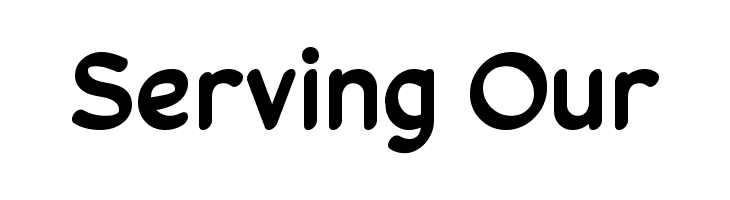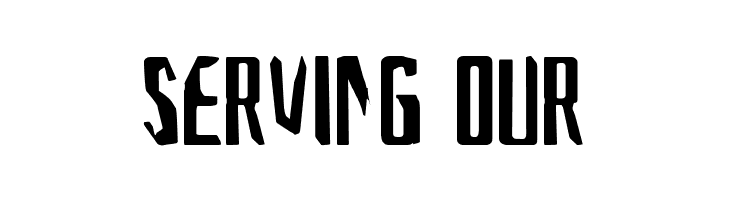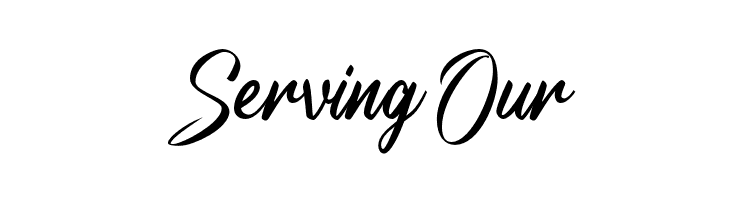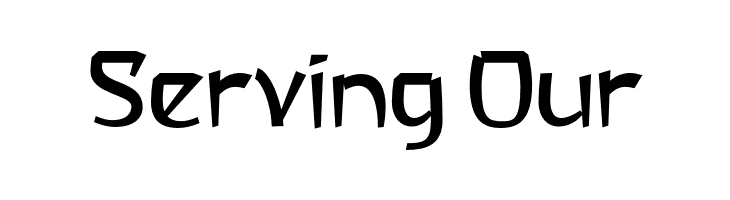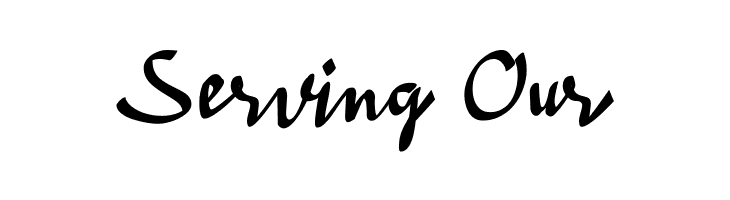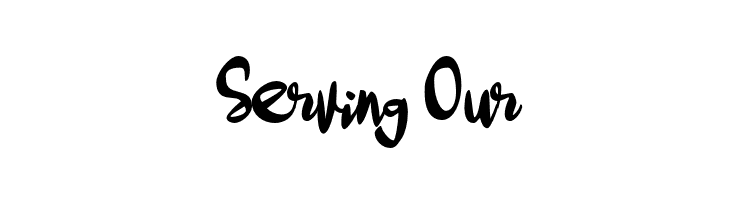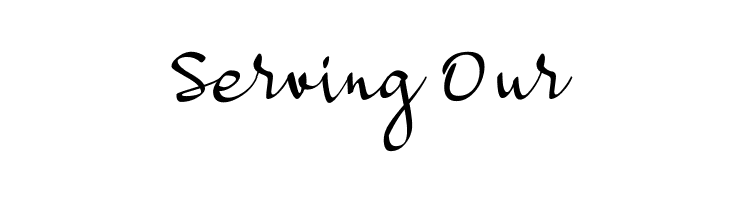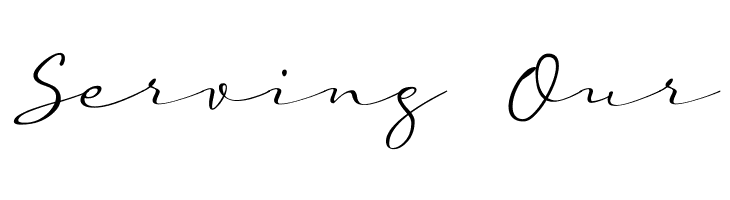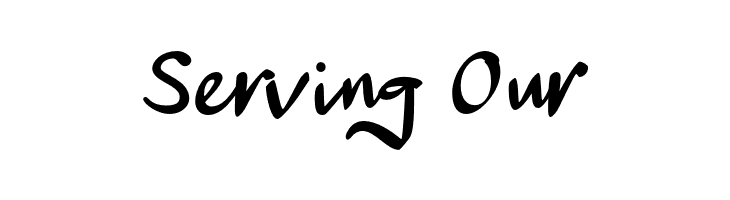
• a Ahlan Wasahlan
A cursive, calligraphic font with elegant loops and flourishes.
• a Antara Distance
An elegant, flowing script font with smooth, cursive strokes.
• a Antara Distance
A fluid, elegant script font with a handwritten style.
• a Anti Corona
A rounded, modern font with smooth curves and consistent stroke width.
• a Anti Corona
A modern, rounded font with a friendly and approachable style.
• a Apollo in the Sky
A bold, handwritten-style font with dynamic brush strokes.
• a Apollo in the Sky
A bold, expressive script font with a hand-drawn, dynamic style.
• a Asian Hiro
A bold, angular font with a modern, edgy style inspired by Asian calligraphy.
• a Asian Hiro
A bold, angular font with a modern, futuristic style.
• a Auto Signature
A graceful script font with fluid, cursive strokes and connected characters.
• a Auto Signature
An elegant, cursive font with fluid, connected strokes and a refined aesthetic.
• a Autoyes Closely
A playful handwritten font with bold, dynamic strokes and a lively aesthetic.
• a Autoyes Closely
A playful, handwritten font with smooth curves and a lively style.
• A Baster Rules
A playful, cursive script font with dynamic, flowing letterforms.
• a Bators Growth
A flowing, cursive script font with a natural handwritten style.
• a Bators Growth
A flowing, cursive font with a handwritten, elegant style.
• A bit sketchy regular
A playful, sketchy font with a hand-drawn, textured appearance.
• A bite
A bold, grunge-style font with a distressed, textured appearance.
• A Black Crown
A dynamic, cursive script font with a bold, handwritten style.
• A Box For
A bold, distressed font with a vintage, grunge aesthetic.